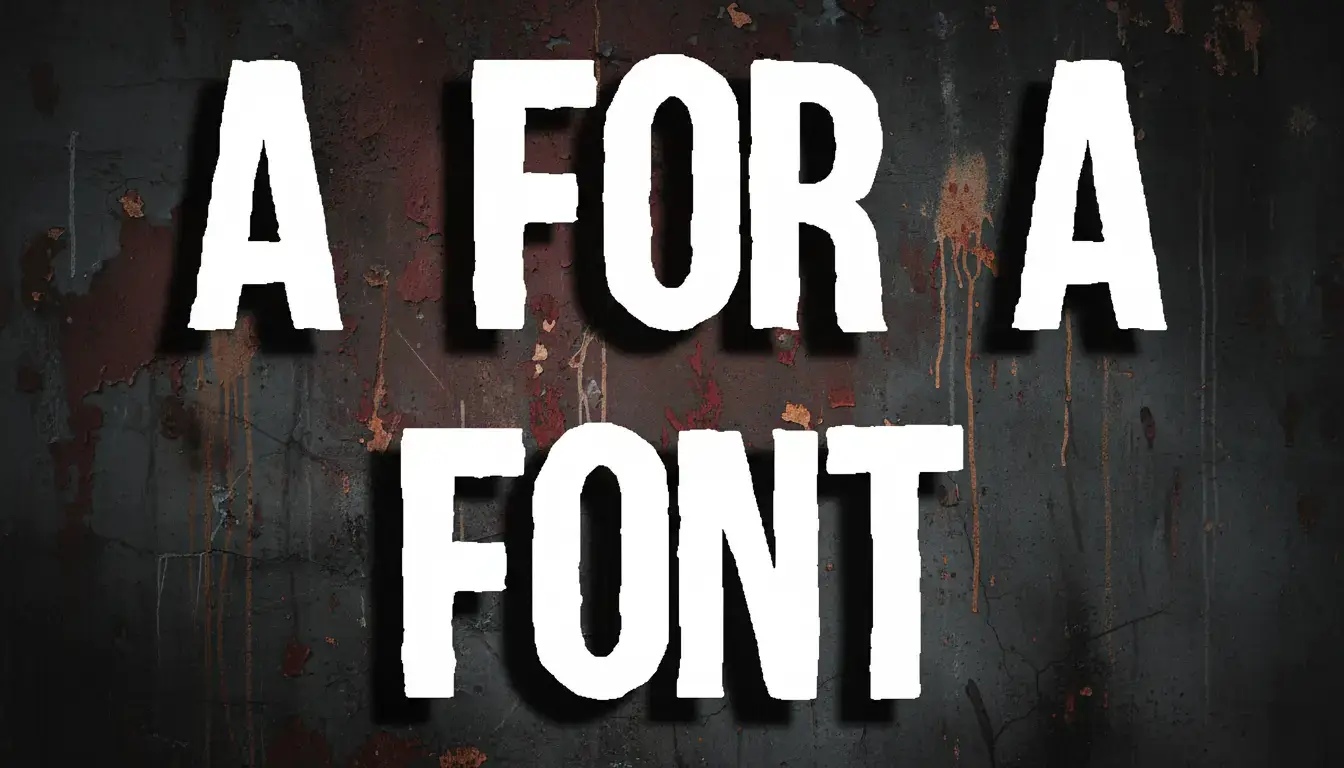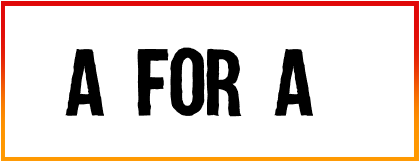
A For A Font
A For A is a fancy font. It's a decorative display font with plenty of personality, made to grab attention. It's a free download, and you can try it with your own text in the preview above first.
What You Can Type With A For A
A For A covers the full alphabet in upper and lowercase, plus all ten numbers, so you can set names, dates and prices without switching fonts. Common punctuation such as &, !, ? and @ is included as well. It doesn't include accented letters such as é or ñ, which makes it an English-only font.
Where A For A Works Best
Designers usually reach for fonts like A For A when they're making posters, logos and eye-catching headlines. Use it for one standout word or headline and let simpler fonts handle the rest.
Does A For A support accented letters?
No. A For A has no accented letters such as é, ñ or ü, so it's best for English text.